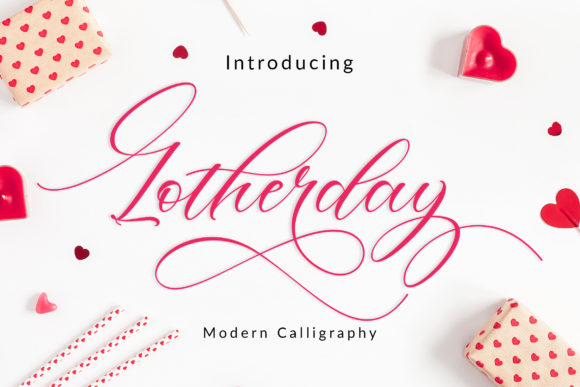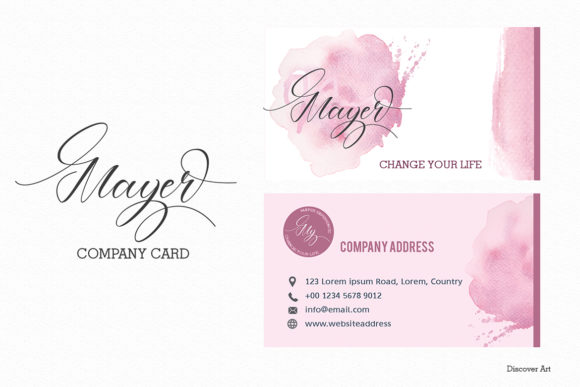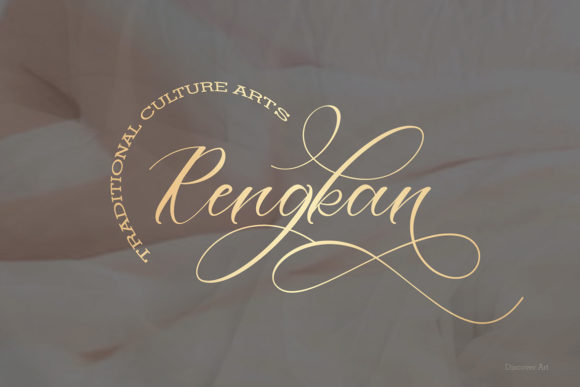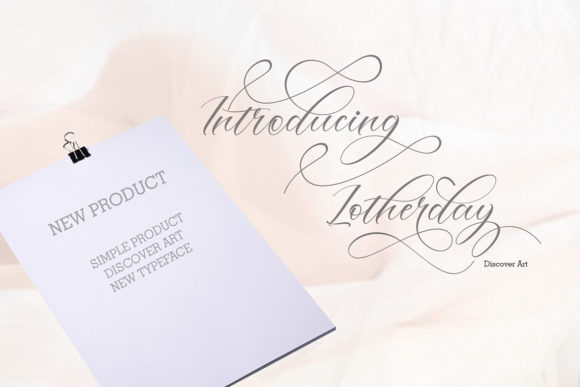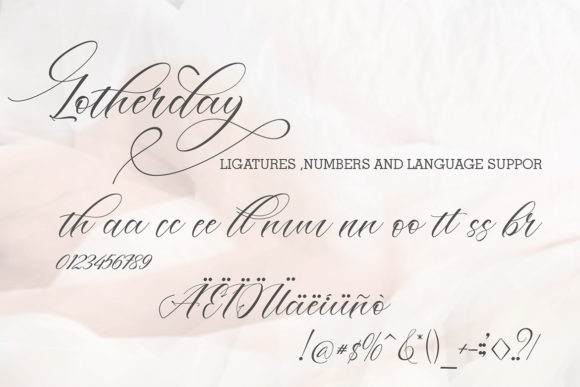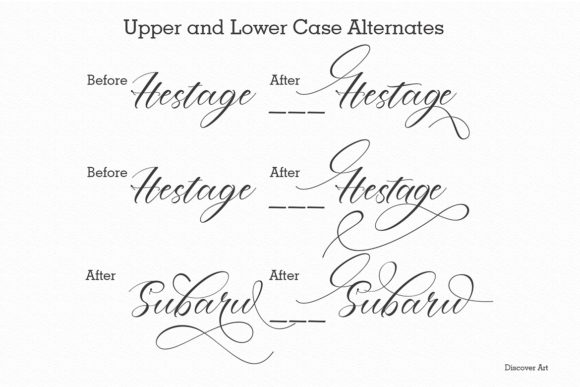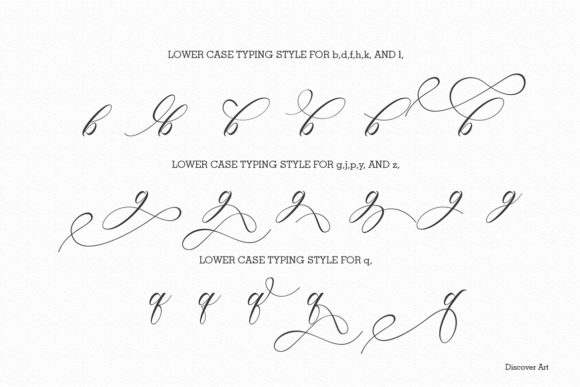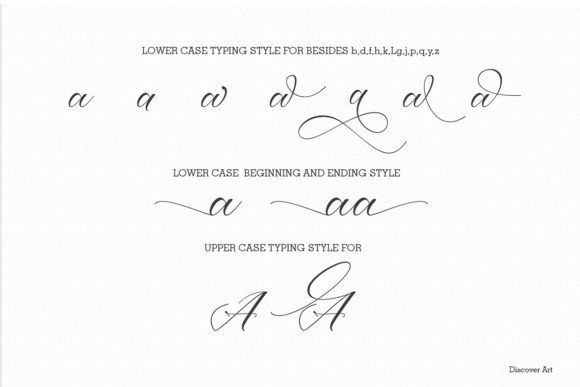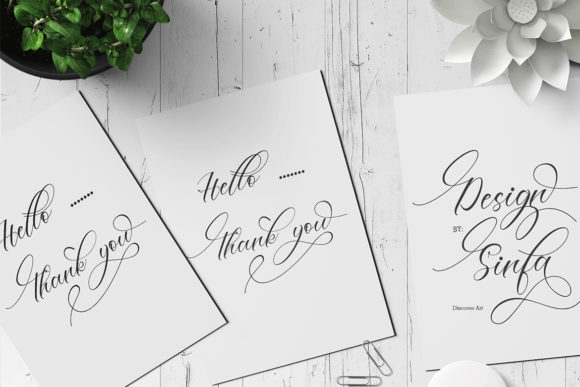
HomeScript FontsLotherday Font Script Fonts Lotherday Font FacebookXPinterestWhatsApp Lotherday Font Poster 2 Lotherday Font Poster 3 Lotherday Font Poster 4 Lotherday Font Poster 5 Lotherday Font Poster 6 Lotherday Font Poster 7 Lotherday Font Poster 8 Lotherday Font Poster 9 About Lotherday Font Lotherday is a friendly script with flowing curves. It is perfectly suited for a wide variety of projects! DOWNLOAD NOW People also explored Ghostings Font Sammalado Font Amenty Script Font Avocandy Font Bestie Font Soulmate Rounded Font My Heart Font Ontime Font Solo Font 346 0 TagsLotherday Font Previous articleFly High FontNext articleLokananta Font LEAVE A REPLY Cancel reply Comment: Please enter your comment! Name:* Please enter your name here Email:* You have entered an incorrect email address! Please enter your email address here Website: Save my name, email, and website in this browser for the next time I comment. Personal Use Free Sushi Day Personal Use Free Read more about this font Mika Personal Use Free Read more about this font Old Linoleum Personal Use Free Read more about this font GoodFay Personal Use Free Read more about this font BLOG Top 10 Handwritten Fonts That Elevate Your Designs Top 10 Handwritten Fonts That Will Elevate Your Designs Handwritten fonts bring a warm, personal touch to every creative project. Whether you're designing logos, invitations,... The 10 Best Handwriting Fonts to Add Personality to Your Designs Free vs Paid Fonts: Why Investing in Premium Fonts Is Worth It Top 7 Google Fonts Alternatives for Faster and Privacy-Friendly Web Design (2025)